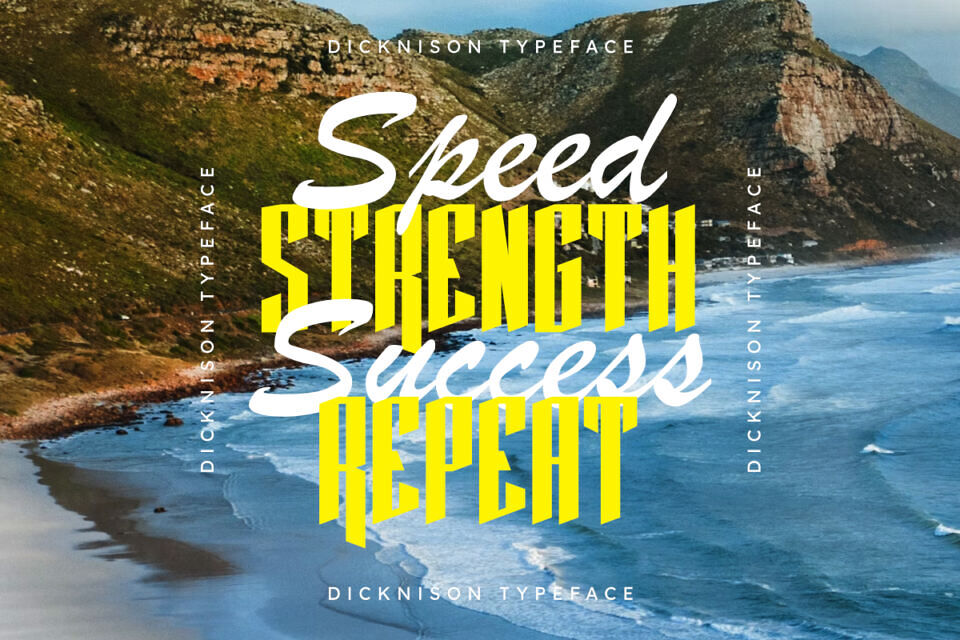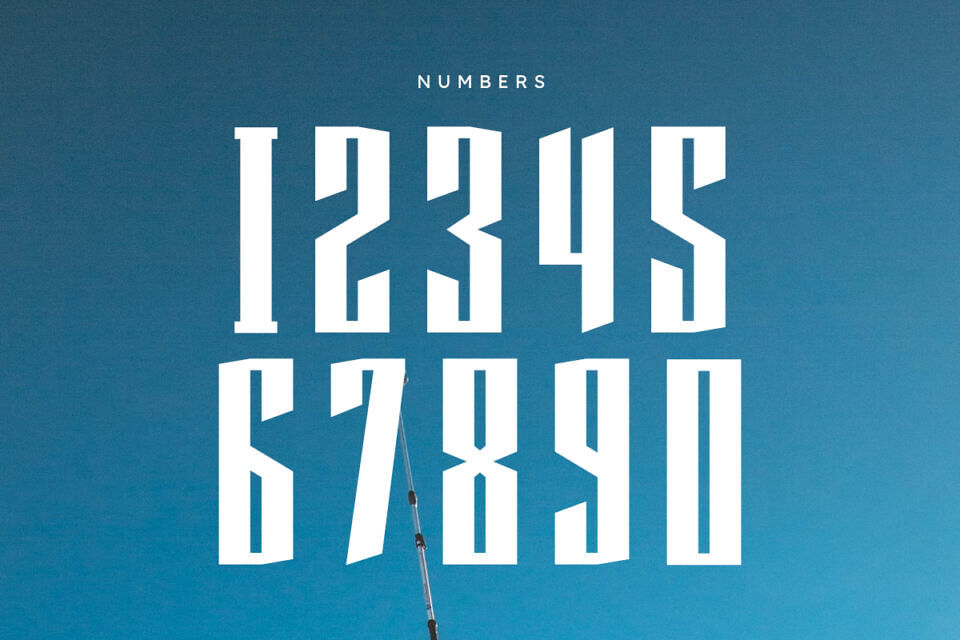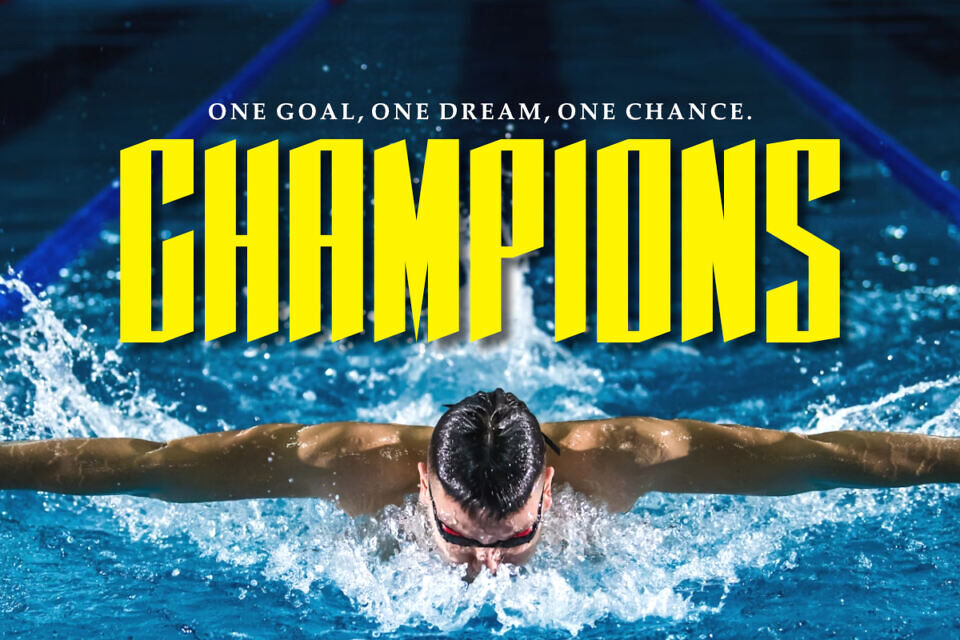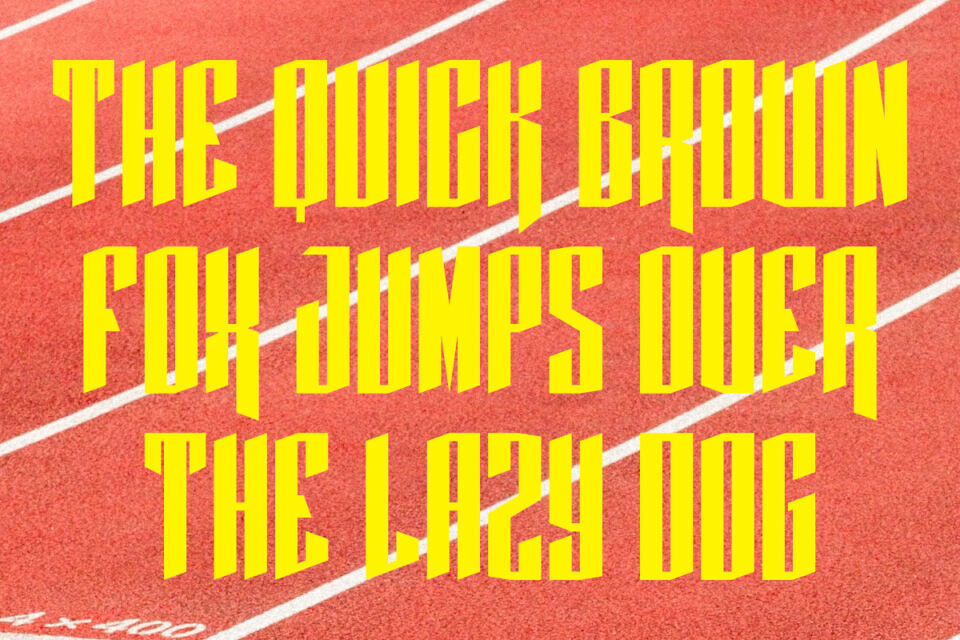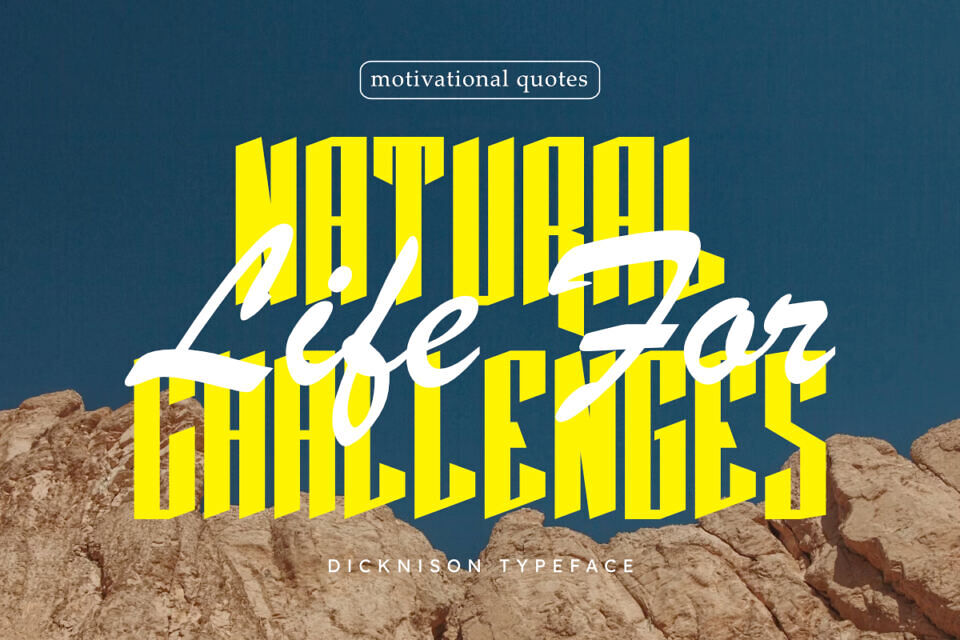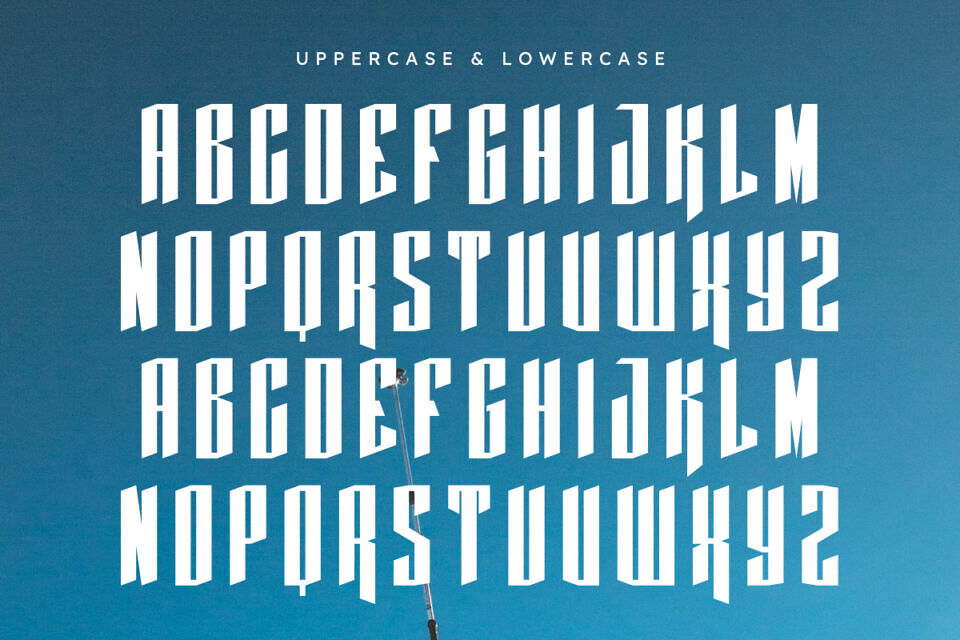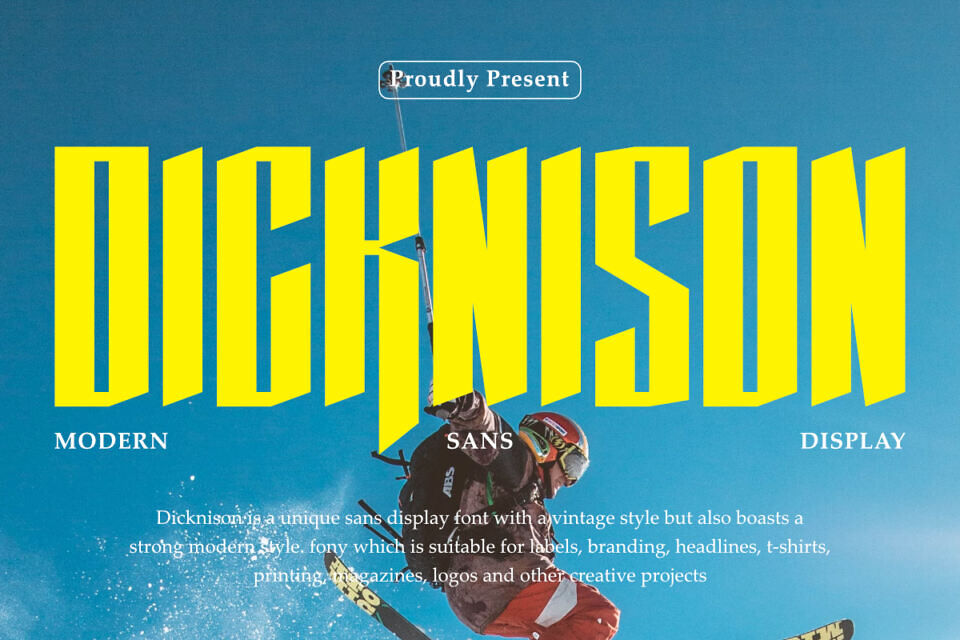
Dicknison Font
Dicknison is a unique modern sans display font that masterfully blends a strong contemporary style with a distinctive vintage edge. This typeface boasts bold, impactful letterforms that capture attention, making it incredibly versatile for a wide range of creative projects.
Its dynamic character is perfect for striking labels, robust branding, powerful headlines, engaging t-shirt designs, eye-catching magazine layouts, compelling logos, and various other creative endeavors where you want to make a strong visual statement. Unleash the bold personality of Dicknison in your next design.